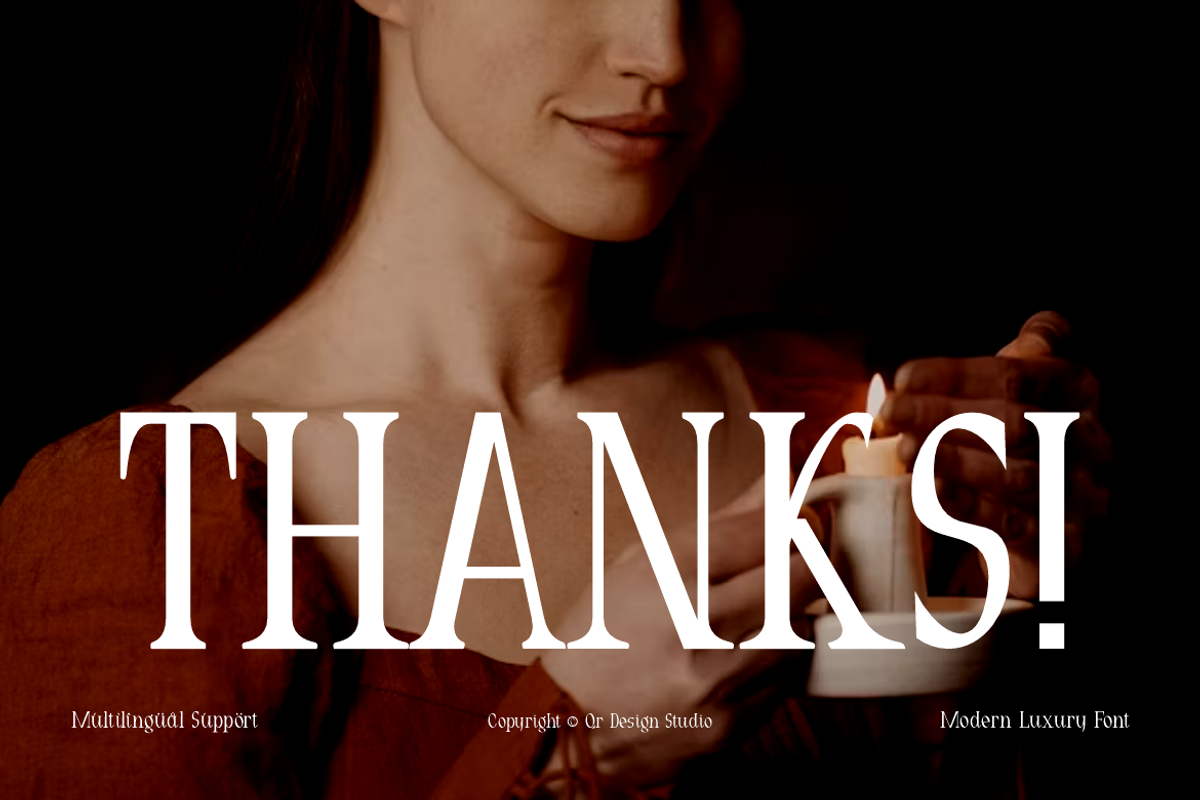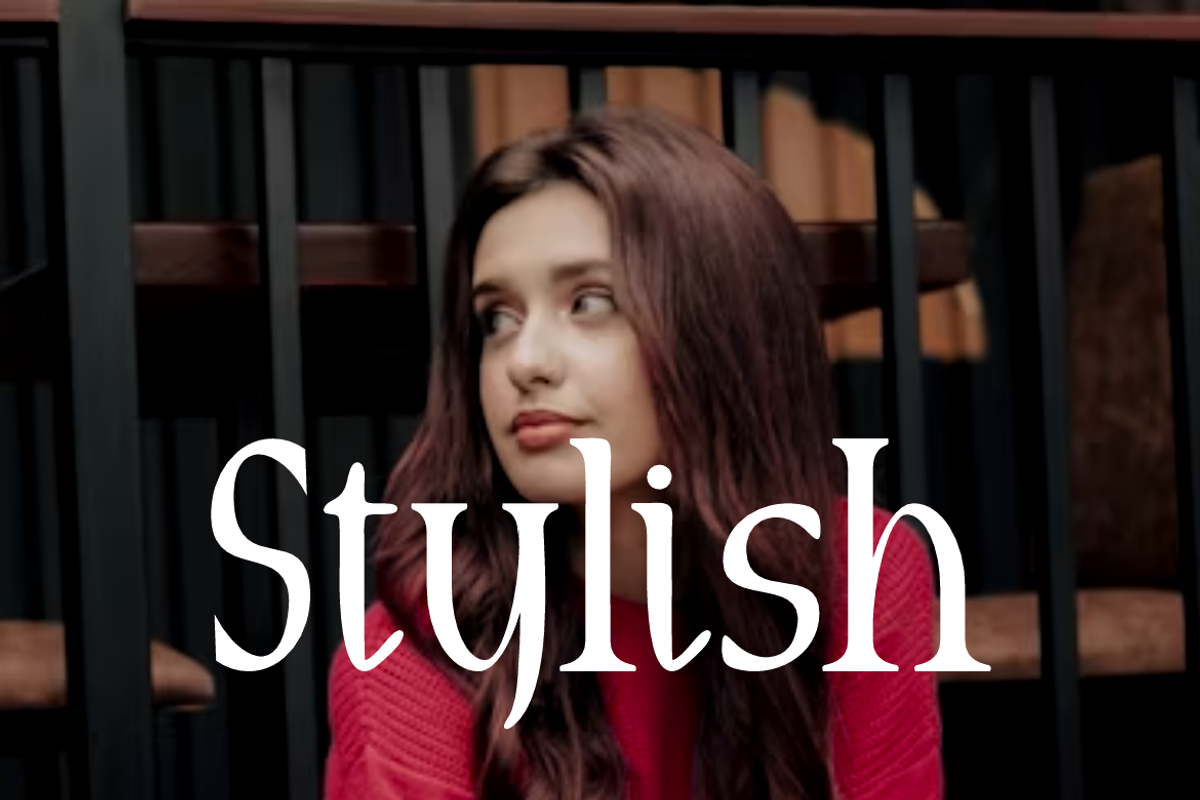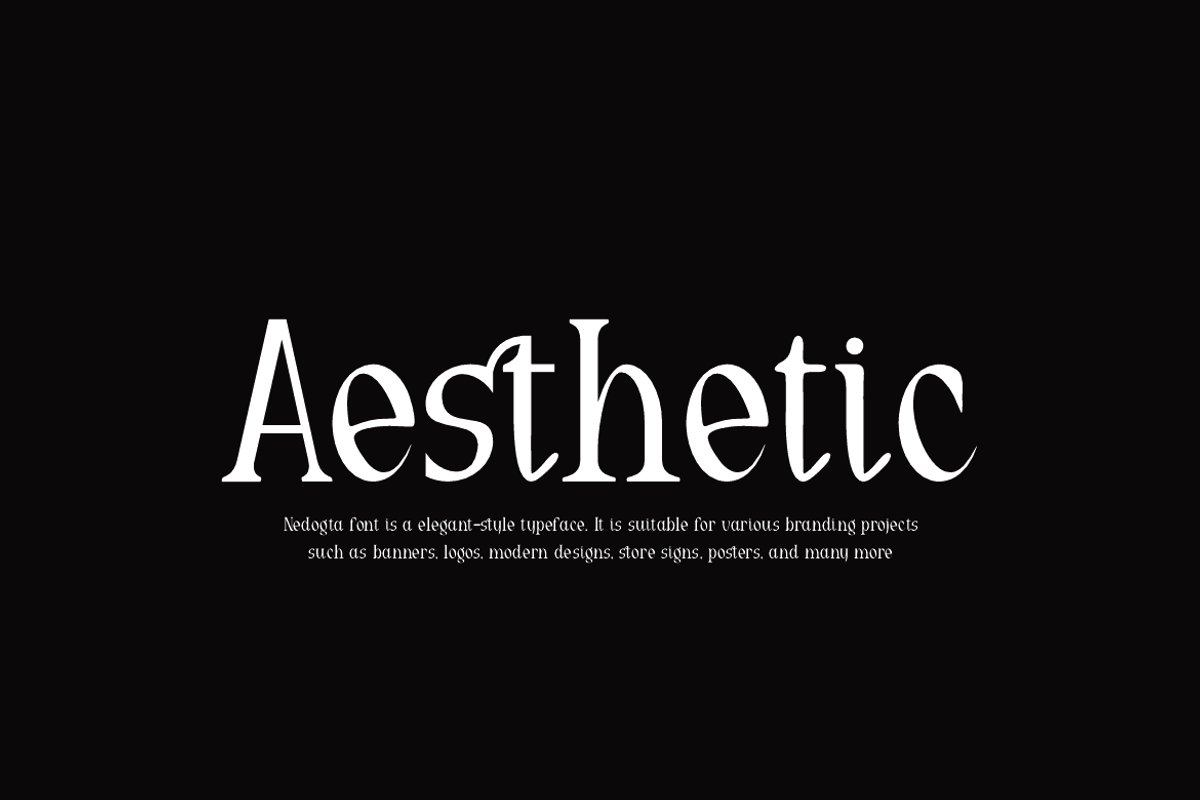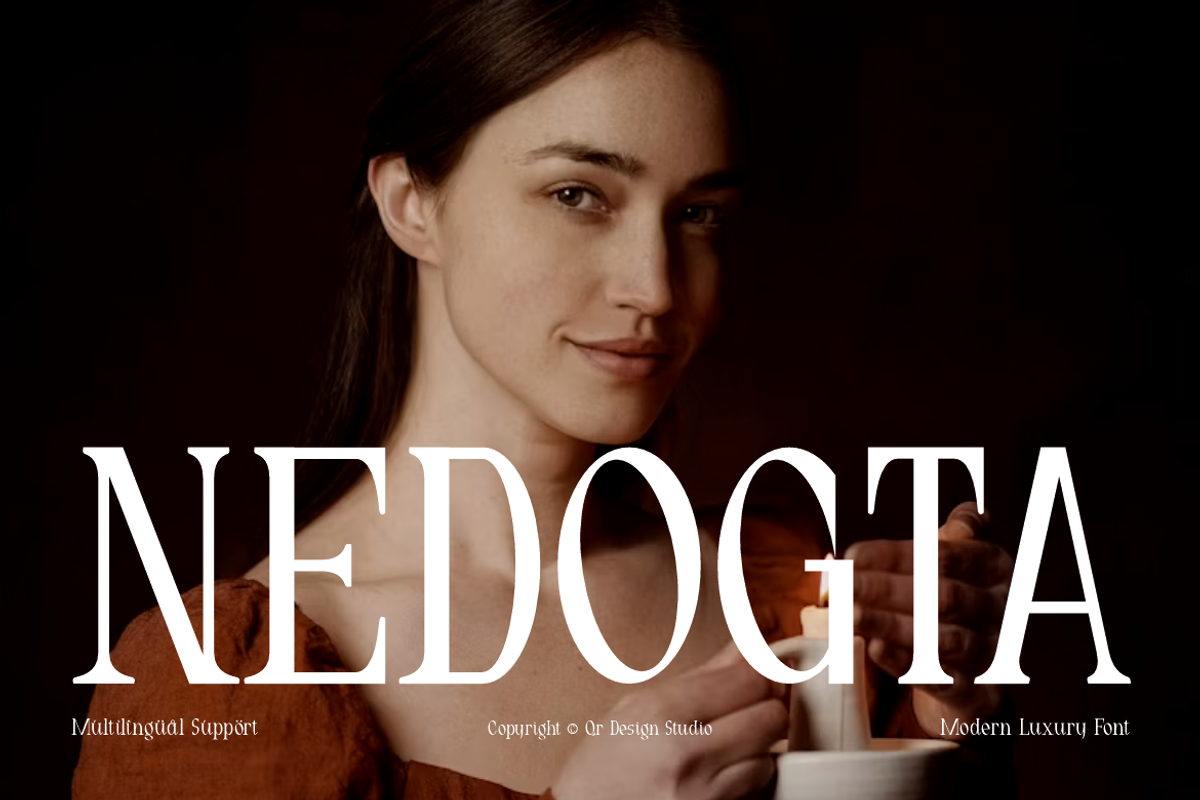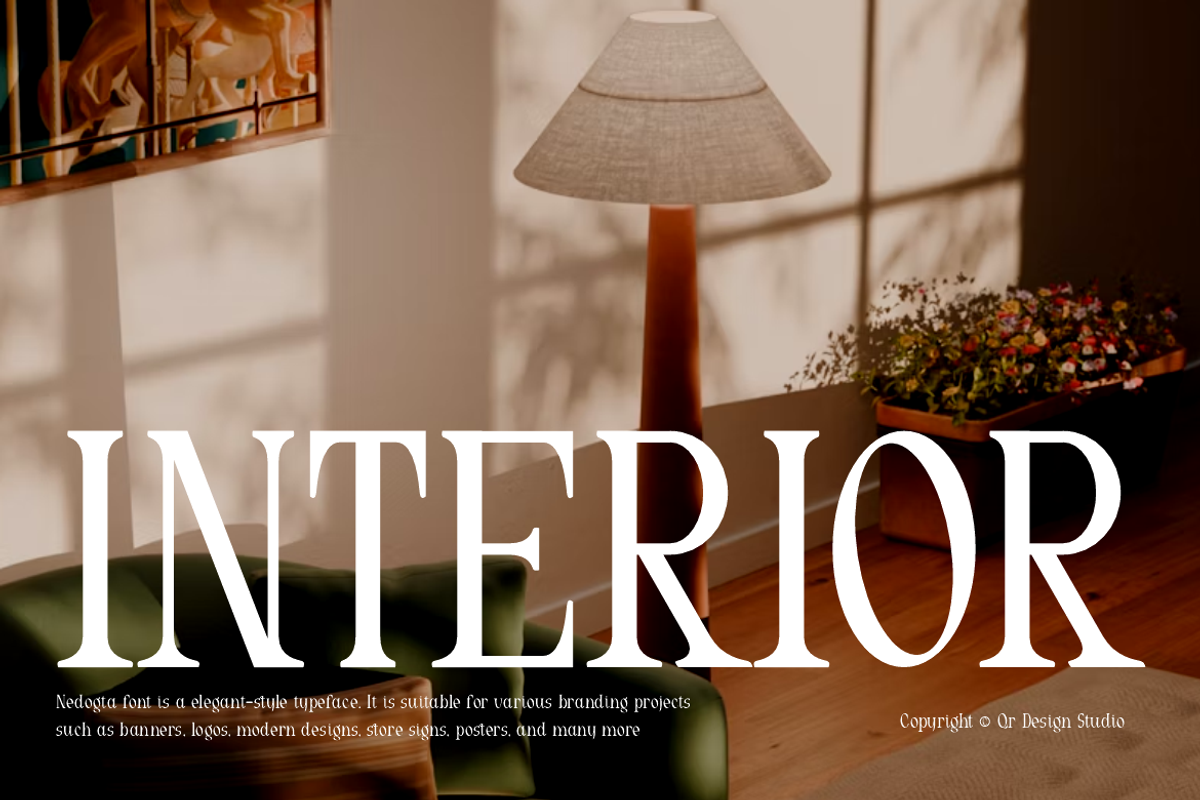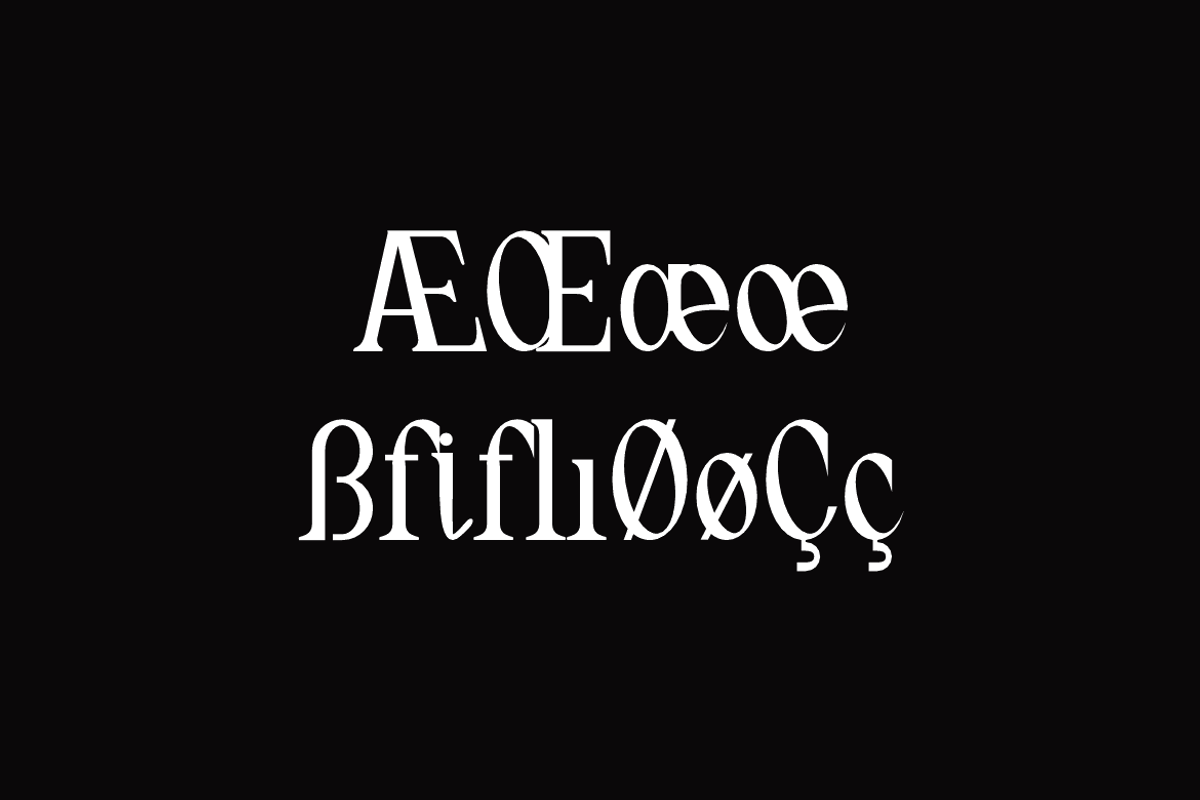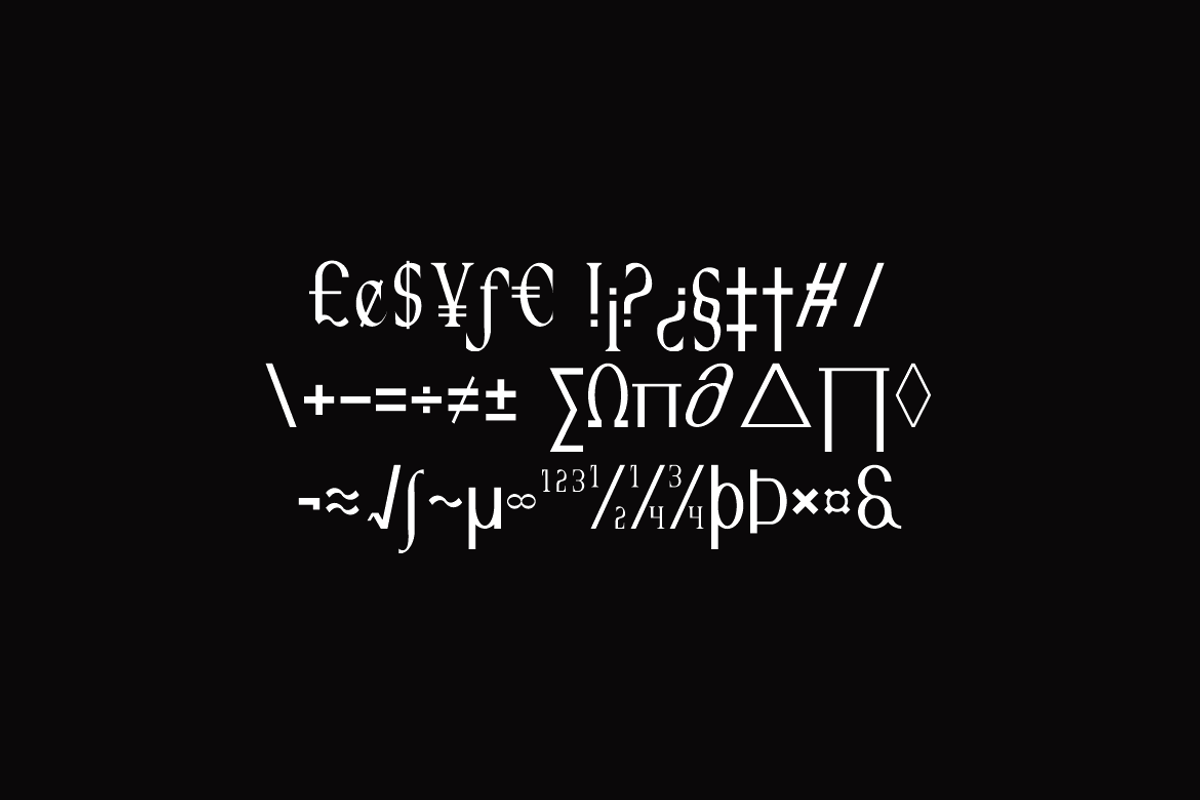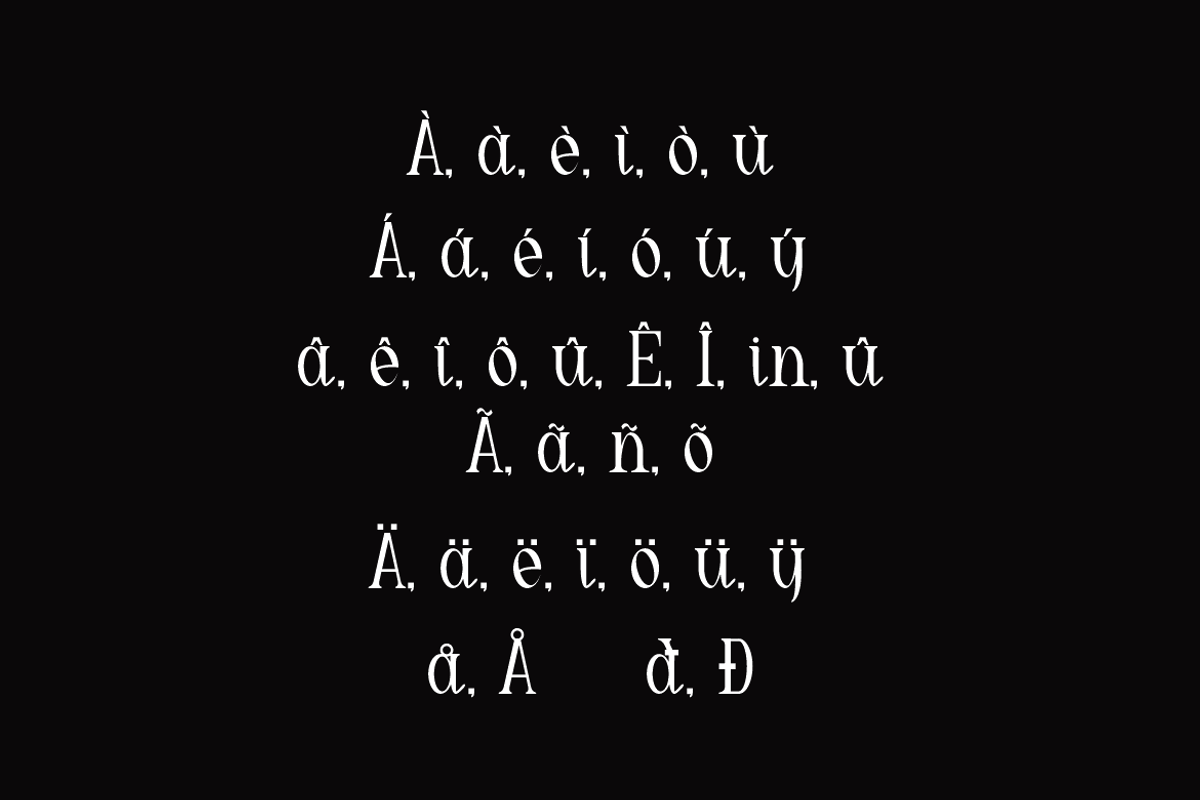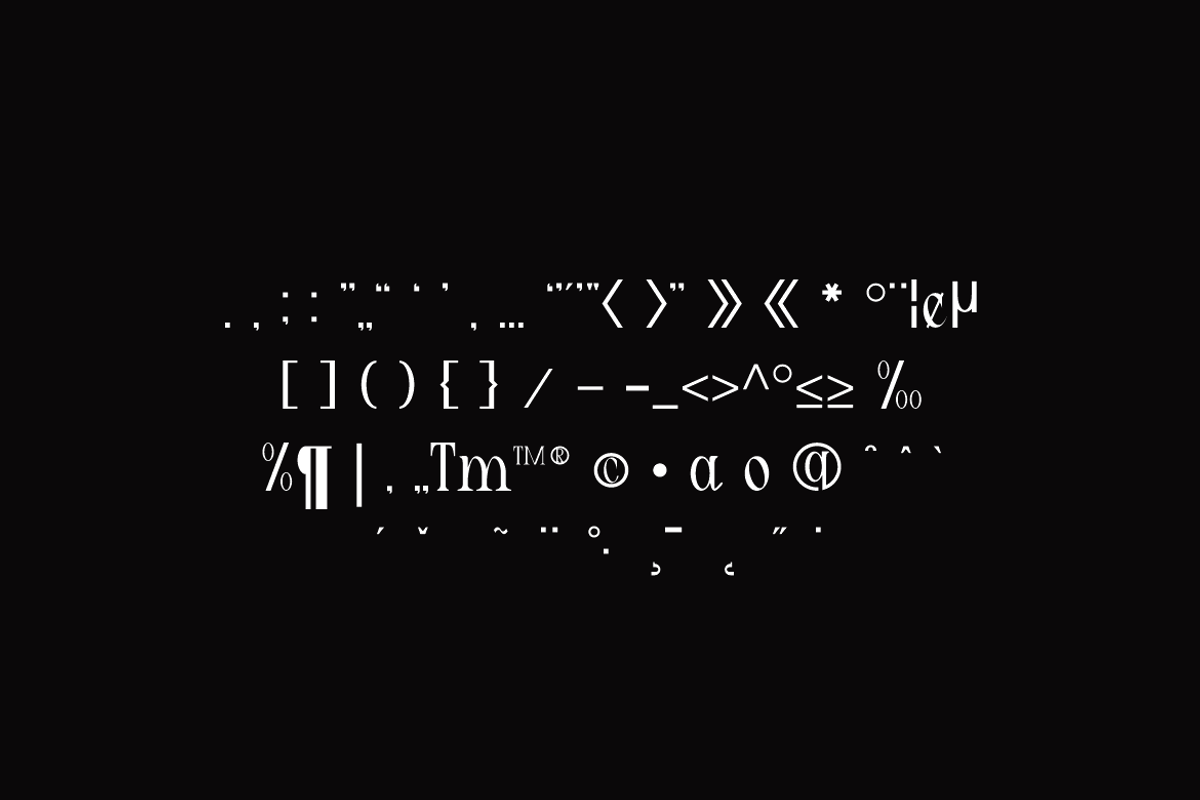
Nedogta - Modern Aesthetic Font
Nedogta Font is a bold and authentic display typeface.
It’s perfect for various branding projects such as logos, modern designs,
and more. This font stands out beautifully in a wide range of contexts.